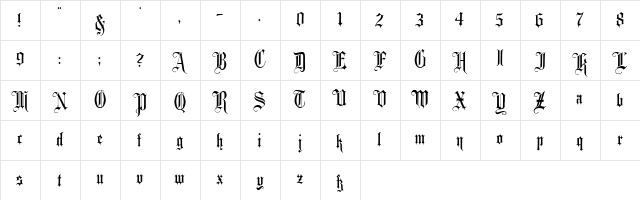
Minster No 1 Regular
| Designer | PJL |
Design Context for Minster No 1 Typeface
Minster No 1 is a composed and adaptable typeface that performs quietly and consistently across a wide range of design contexts.